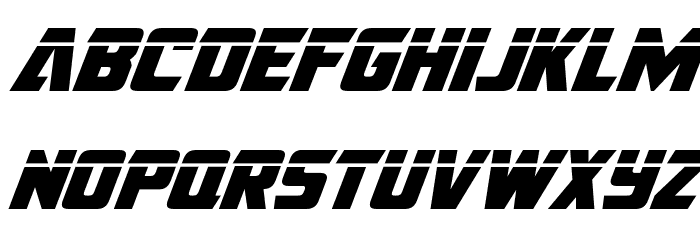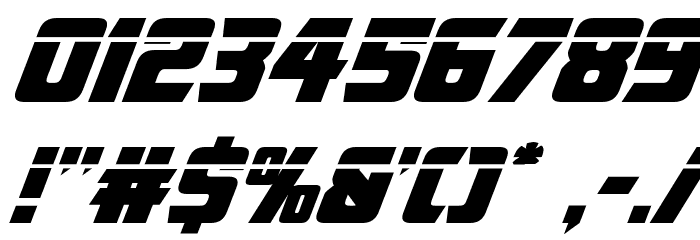
American Kestrel Laser Font
This font features a bold, dynamic style with a futuristic and aggressive appearance. The characters are designed with sharp angles and a sense of motion, resembling the sleek lines of a sports car or aircraft. The uppercase letters are particularly striking, with a consistent slant that adds to the sense of speed and energy. The numbers and special characters maintain this bold aesthetic, ensuring a cohesive look across all glyphs. This font is ideal for projects that require a strong, impactful visual presence.
A bold, dynamic font with a futuristic and aggressive style.
- Font: American Kestrel Laser
- Proposed Projects: Ideal for sports branding, automotive designs, video game titles, and action movie posters.